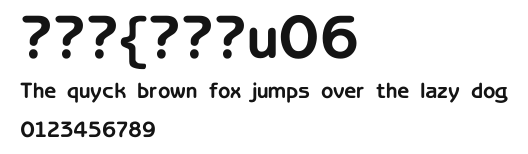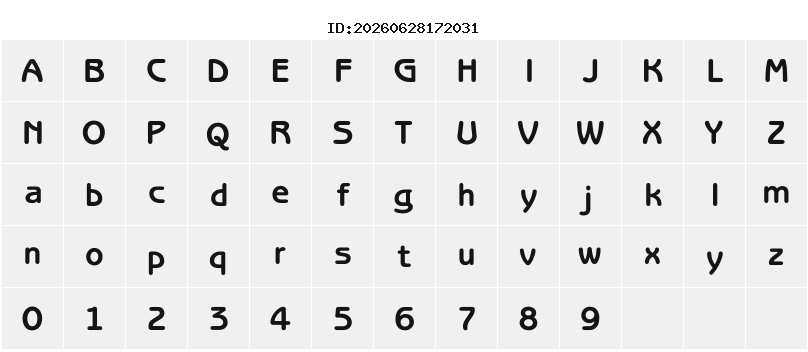
• Font Name: ???{???u06
About ???{???u06.ttf
???{???u06.ttf is a modern, elegant sans-serif font designed for ultimate readability and visual harmony. Perfect for branding, headlines, web design, and print materials.